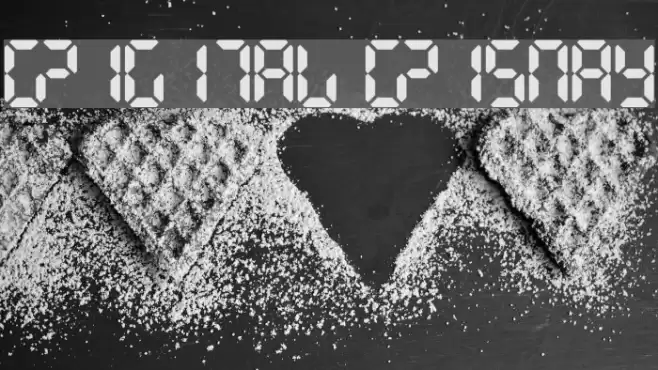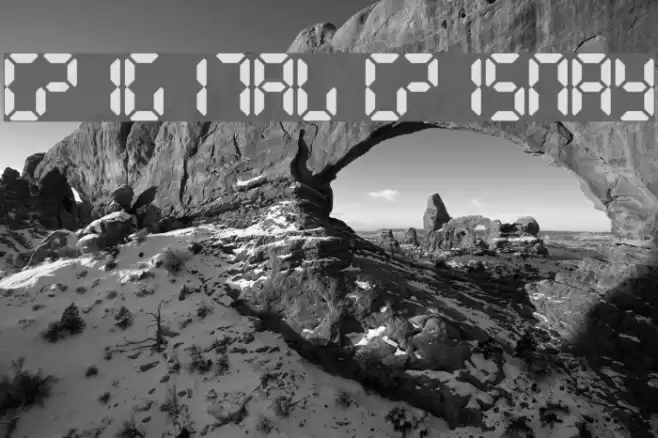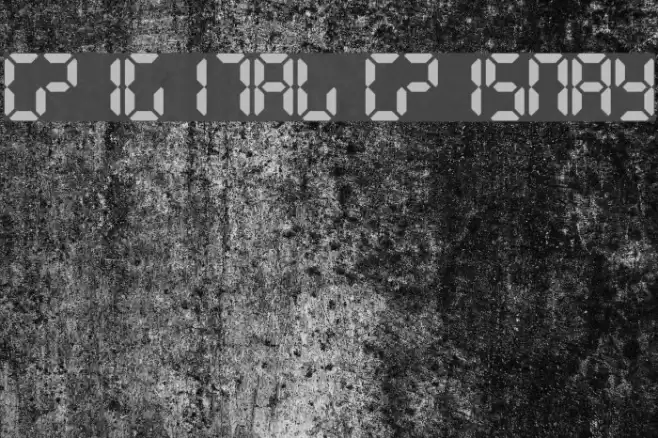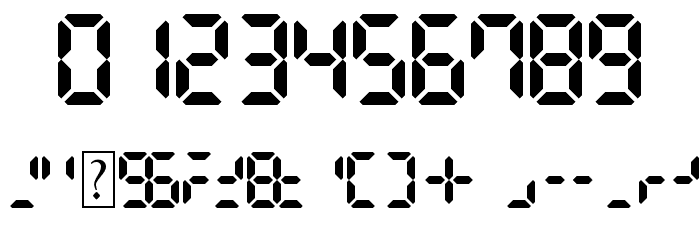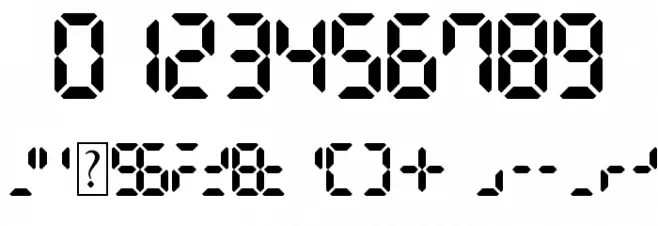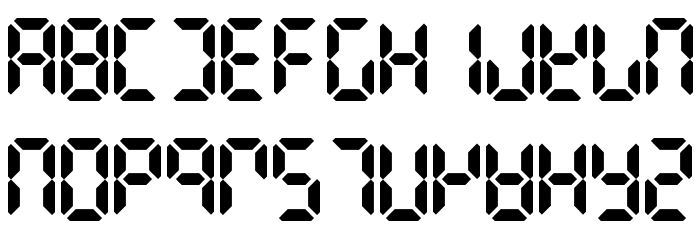
Digital Dismay Font
Digital Dismay Description
This font features a digital, segmented style reminiscent of classic LED displays. Each character is constructed using a series of geometric segments, creating a futuristic and technological appearance. The design is highly structured, with each letter and number appearing as if it is part of an electronic display. The font is uniform in its presentation, with consistent line thickness and spacing, giving it a clean and precise look. This style is particularly effective for conveying a sense of modernity and digital innovation, making it ideal for projects that require a tech-savvy or retro-futuristic aesthetic.
A segmented, digital-style font inspired by classic LED displays from Futuristic fonts.